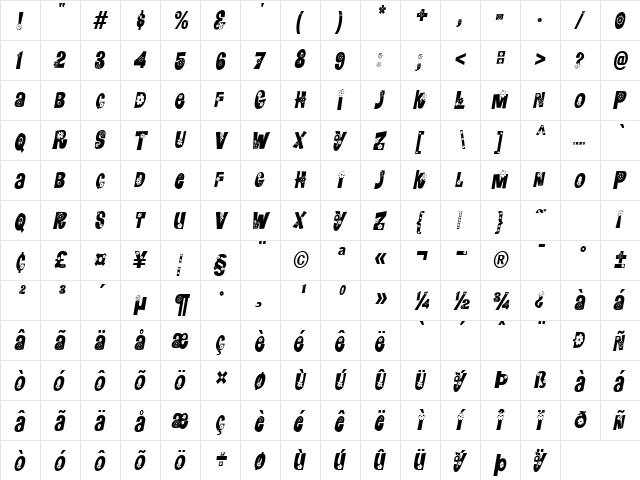
FlowerPowerCondensed Italic Font Preview
Design Context for FlowerPowerCondensed Typeface
FlowerPowerCondensed has the bold swagger of sports branding: strong, assertive letterforms designed to dominate headlines and jerseys alike. The dynamic lean of this cut emphasises speed and emphasis in any layout. The condensed width makes it efficient for tight spaces without sacrificing legibility.
A natural choice for gym brands, fantasy sports, jersey lettering, and action-driven headlines.
Pro Tip: Use FlowerPowerCondensed in all-caps headlines where its athletic energy can fully express itself. Pair with a solid, simple sans for supporting text.